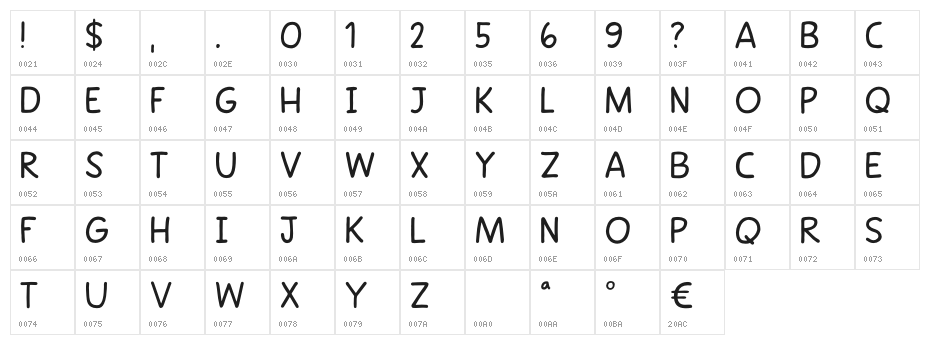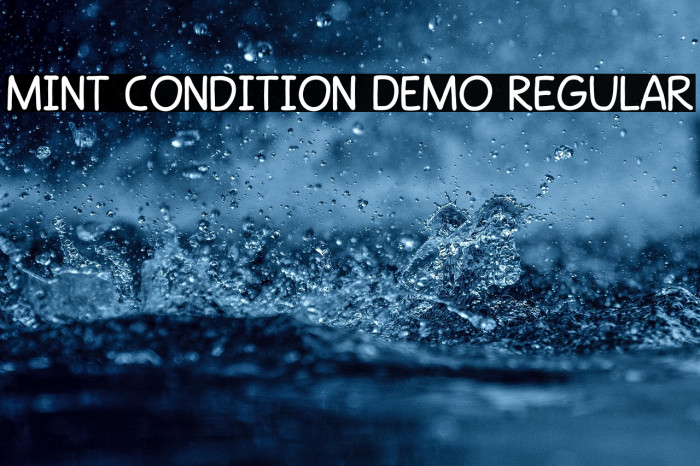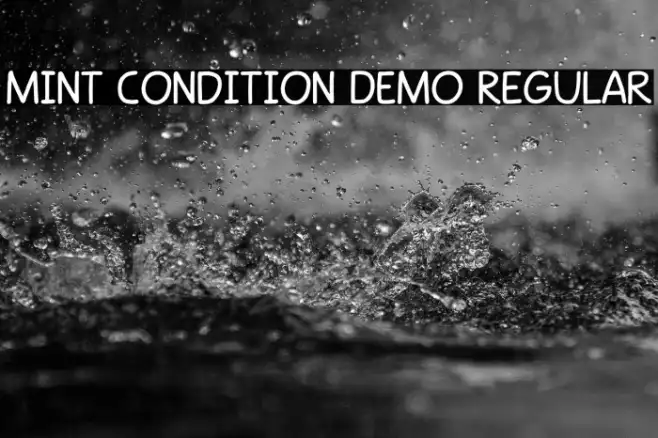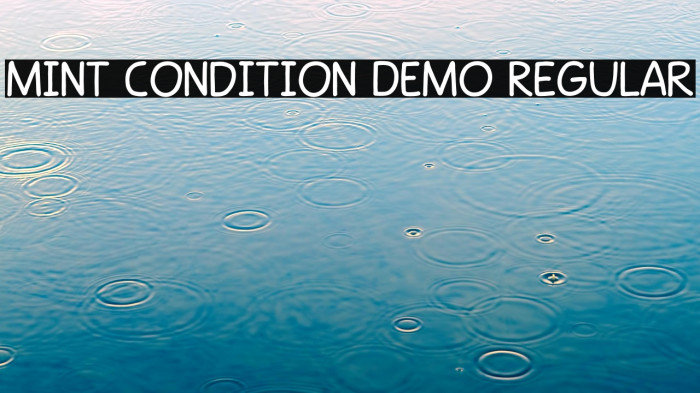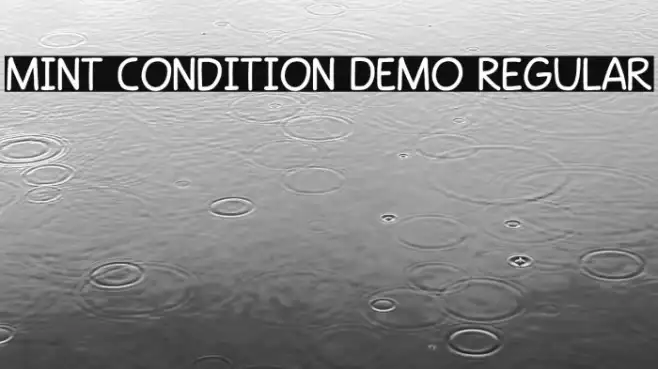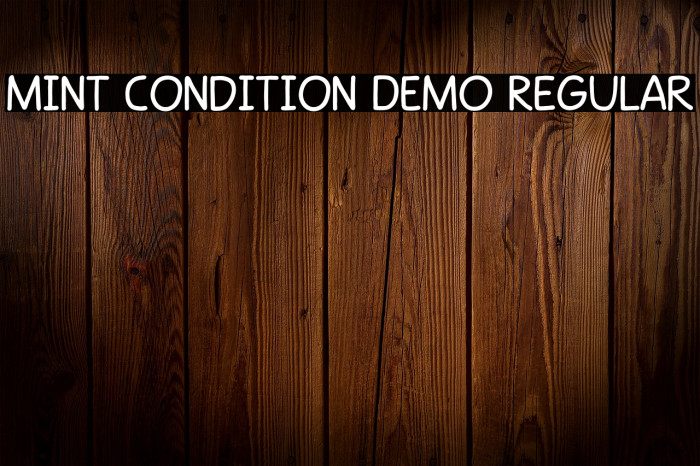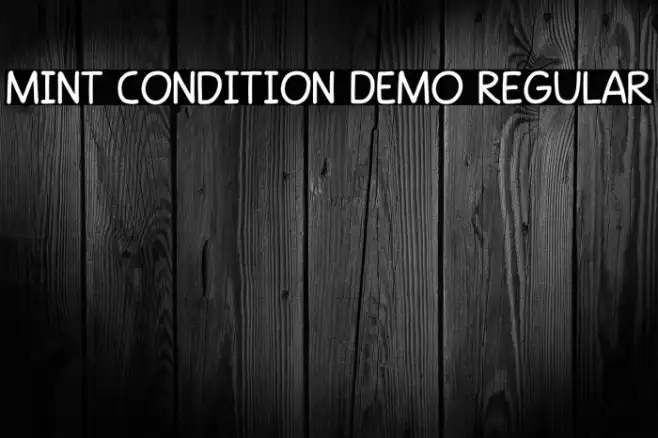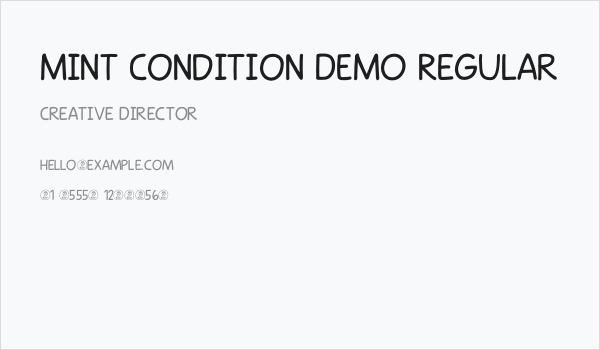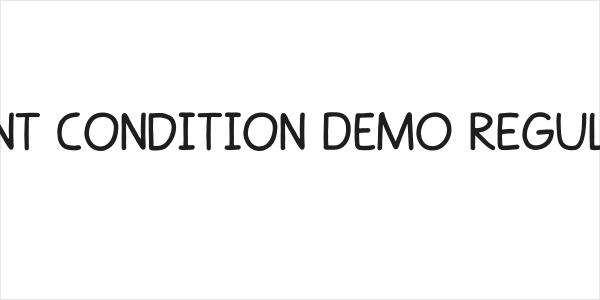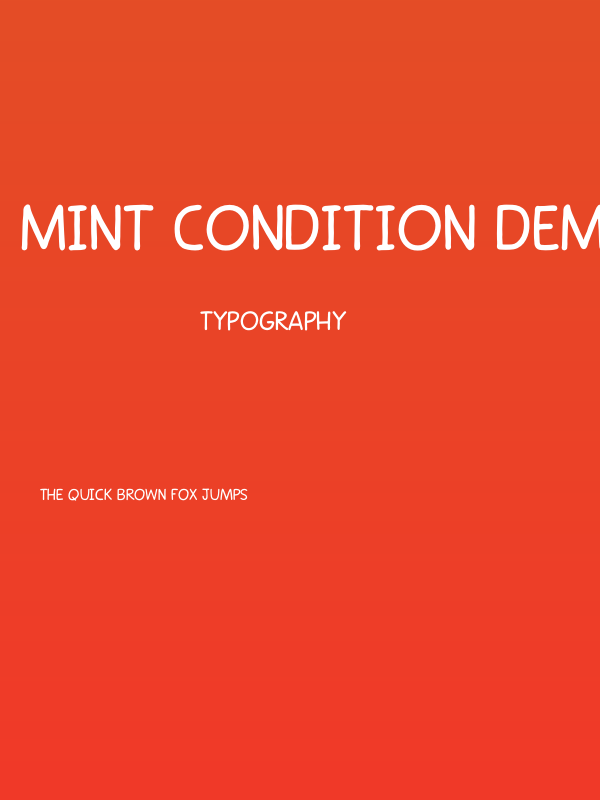
Mint Condition DEMO Regular Font
Mint Condition DEMO Regular Description
This font features a playful and casual style with rounded, hand-drawn characters that evoke a sense of friendliness and approachability. The uppercase and lowercase letters maintain a consistent flow, with slightly irregular lines that add to its charm. The numbers are bold and clear, ensuring readability. Special characters, including punctuation and symbols, are designed with the same whimsical touch, making them suitable for creative projects. The overall appearance is informal yet legible, making it ideal for projects that require a personal or fun touch.
| Proposed Projects | Ideal for children's books, greeting cards, playful branding, and informal invitations. |